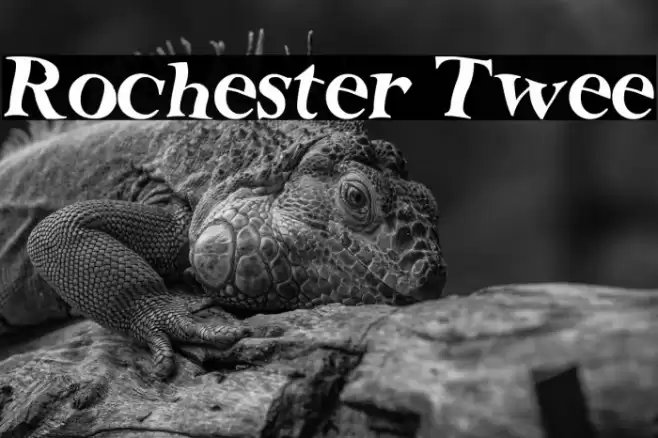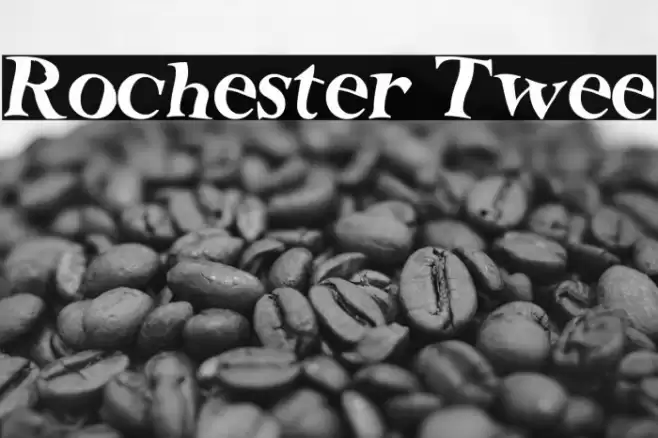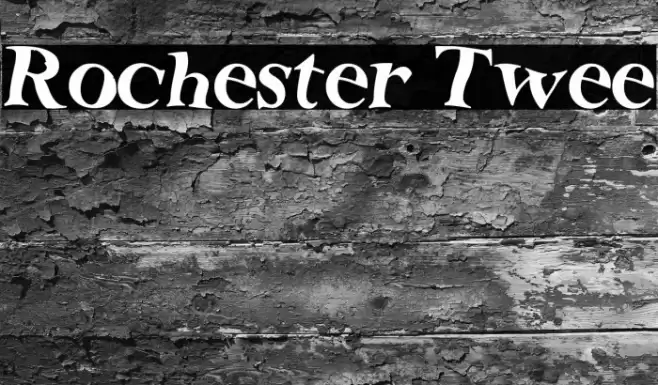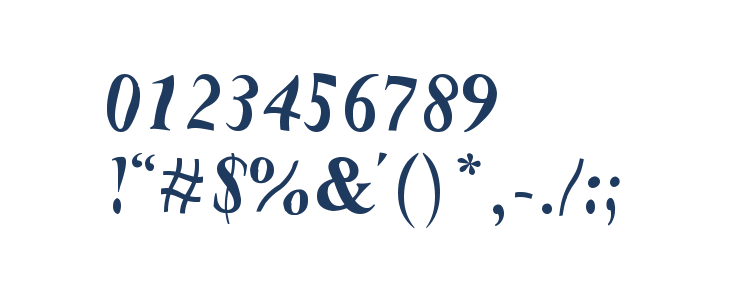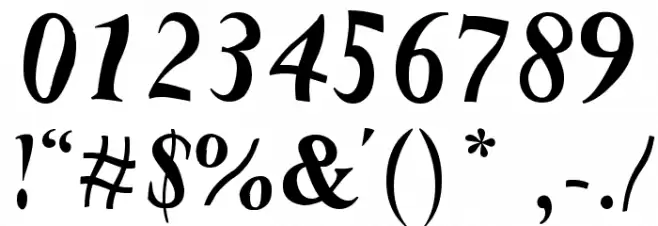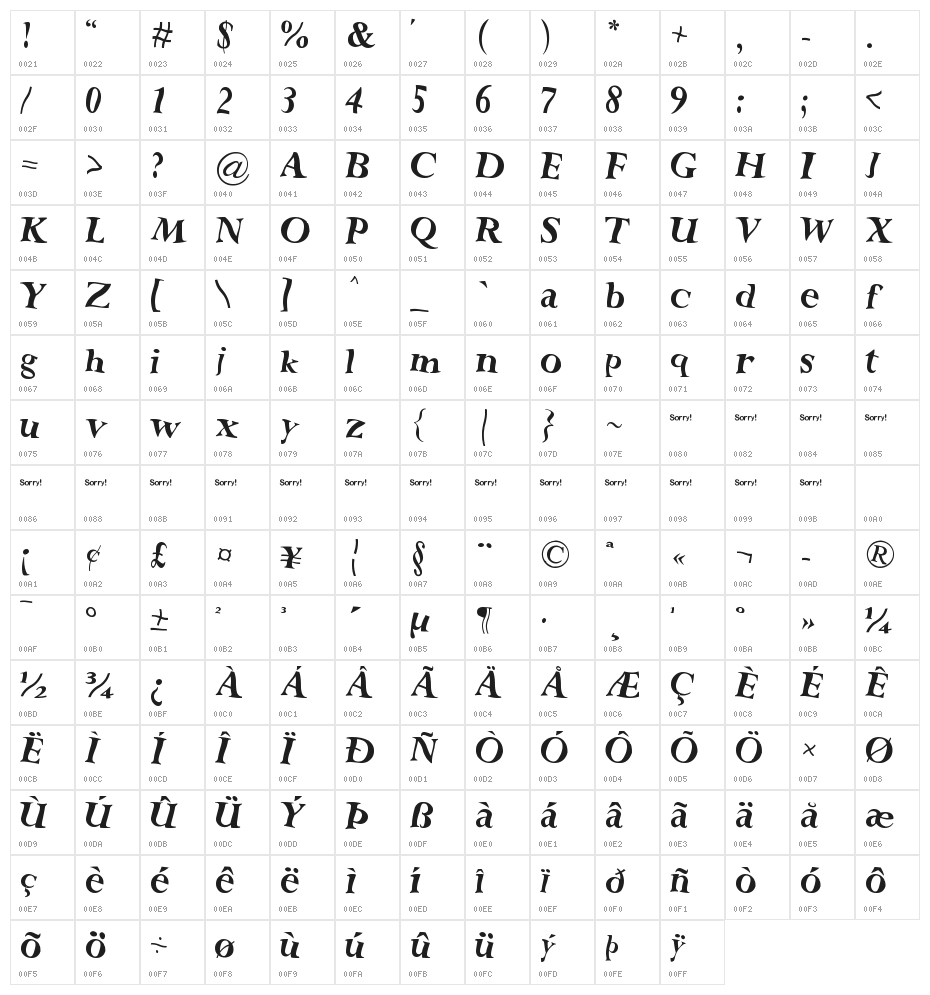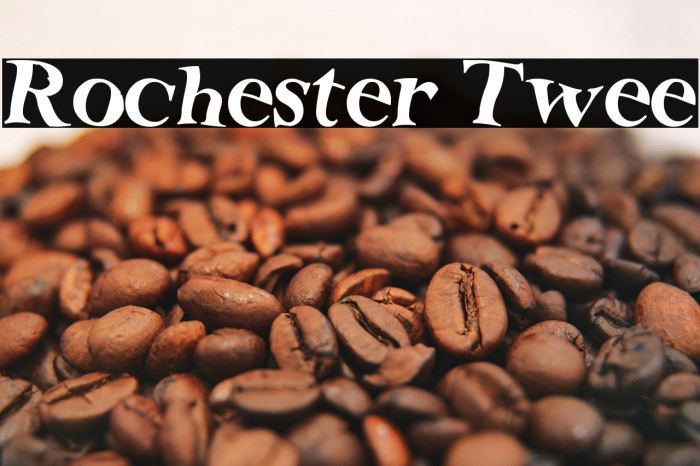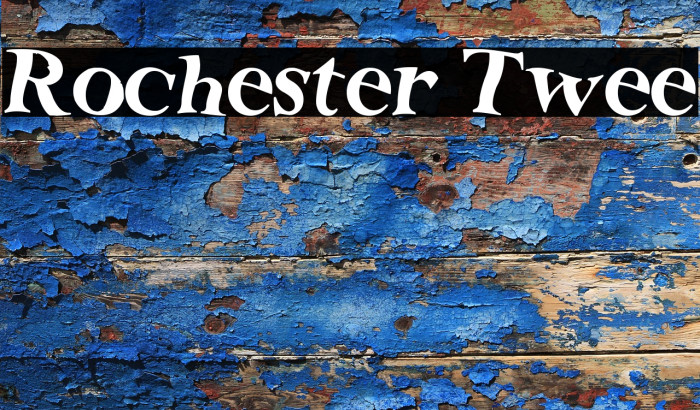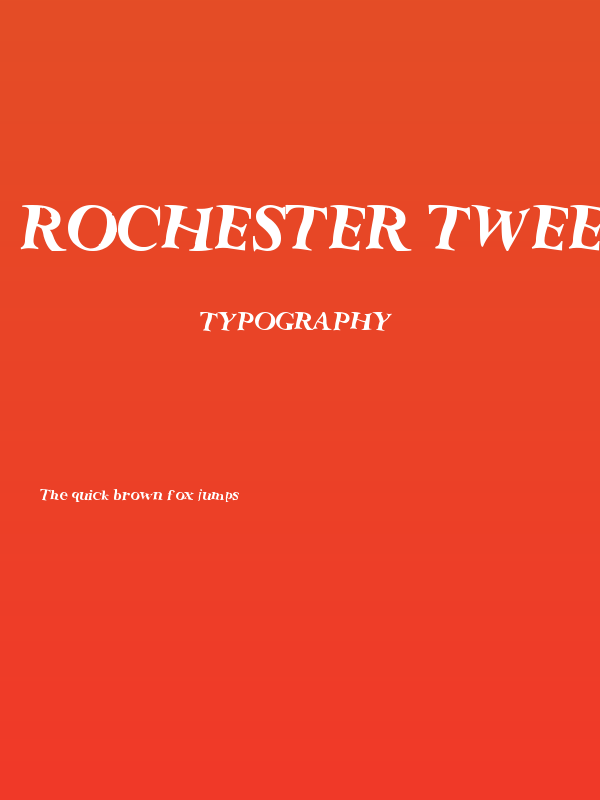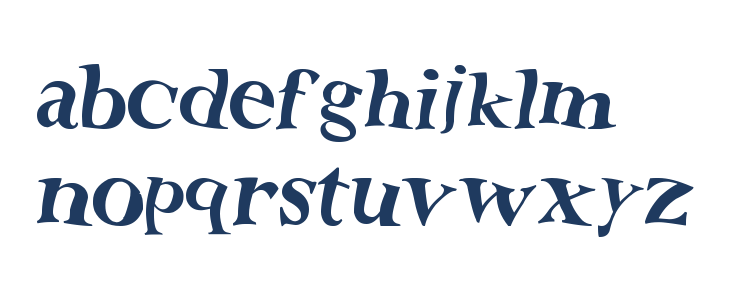
Rochester Twee Font
Rochester Twee Description
This font features a whimsical and elegant script style, characterized by its flowing, cursive letterforms that evoke a sense of grace and sophistication. The uppercase letters are bold and slightly slanted, giving them a dynamic appearance, while the lowercase letters maintain a consistent flow with gentle curves and loops. The numerals are distinct and easy to read, complementing the overall style. Special characters are designed with the same attention to detail, ensuring they blend seamlessly with the alphabet. This font's unique charm makes it suitable for projects that require a touch of elegance and personality.
A whimsical and elegant script font with flowing, cursive letterforms from Uncategorized fonts.
- Proposed Projects: Ideal for wedding invitations, greeting cards, branding, and elegant packaging designs.
- Overall Style: Elegant
- Use Case: Logos, Invitations, Decorative text